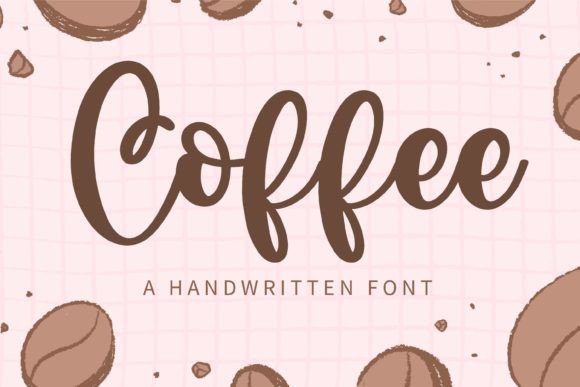
Looking for a font that screams "cool" and "tattoos" all in one? Look no further than Coffee Font, the latest addition to our script font family! Created by BitongType, Coffee is the perfect choice for anyone looking for a unique, eye-catching font that will elevate their designs to the next level.
But don't be fooled by its cool factor - Coffee is also sweet and cute, with a handwritten style that will add a personal touch to any project. Whether you're designing wedding invitations, creating beautiful stationary art, or just looking to spice up your social media posts, Coffee is the perfect choice.
One of the things we love most about Coffee is its versatility. With its incredibly versatile style, Coffee is perfect for any project, no matter how big or small. And with its cool, edgy vibe, it's sure to make a statement wherever you use it.
So if you're looking for a font that's both cool and cute, versatile and unique, look no further than Coffee Font. With its script style and cool fonts for tattoos, Coffee is the perfect choice for anyone looking to create stunning designs that stand out from the crowd.